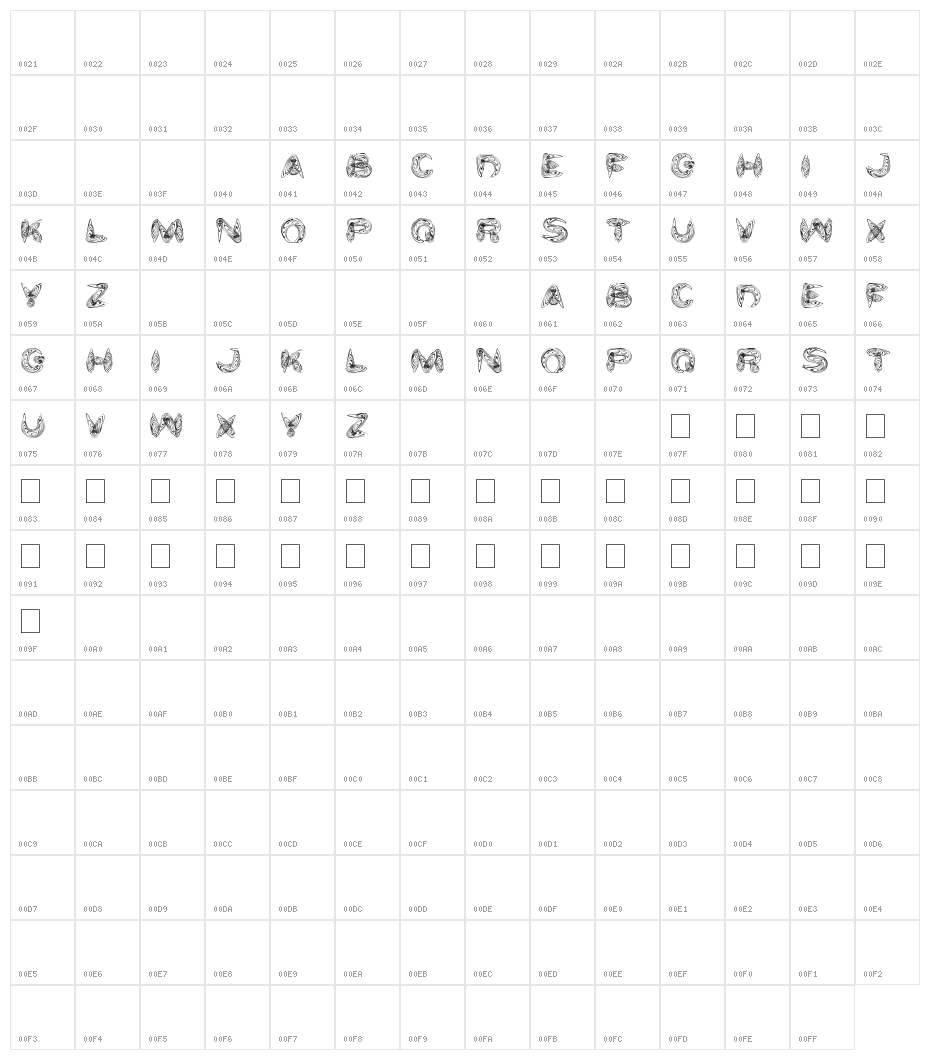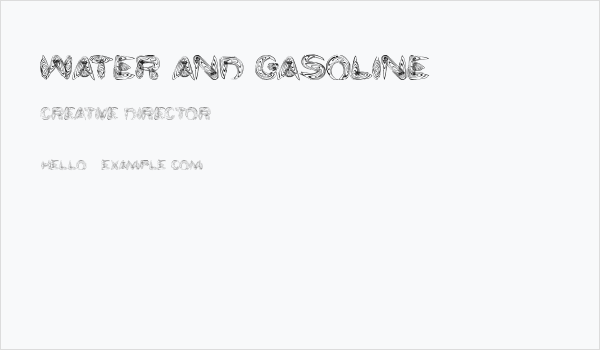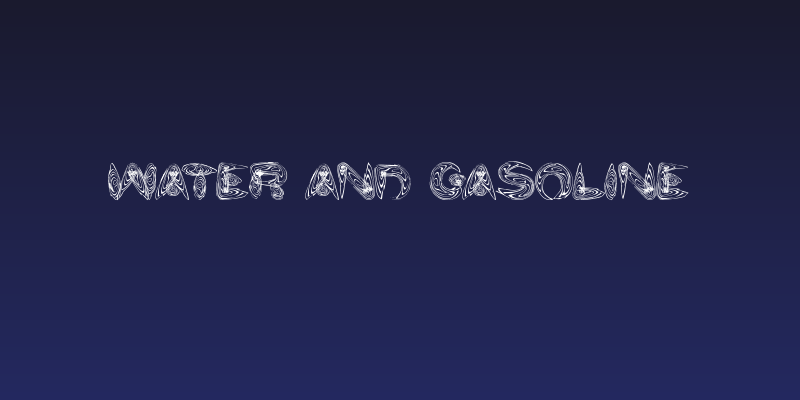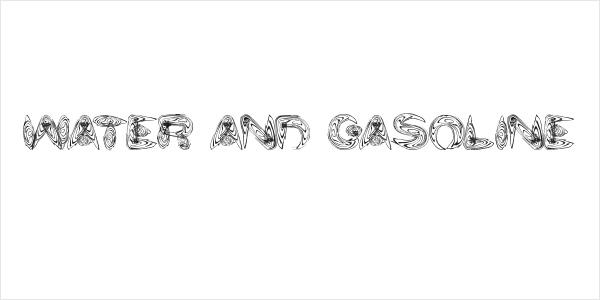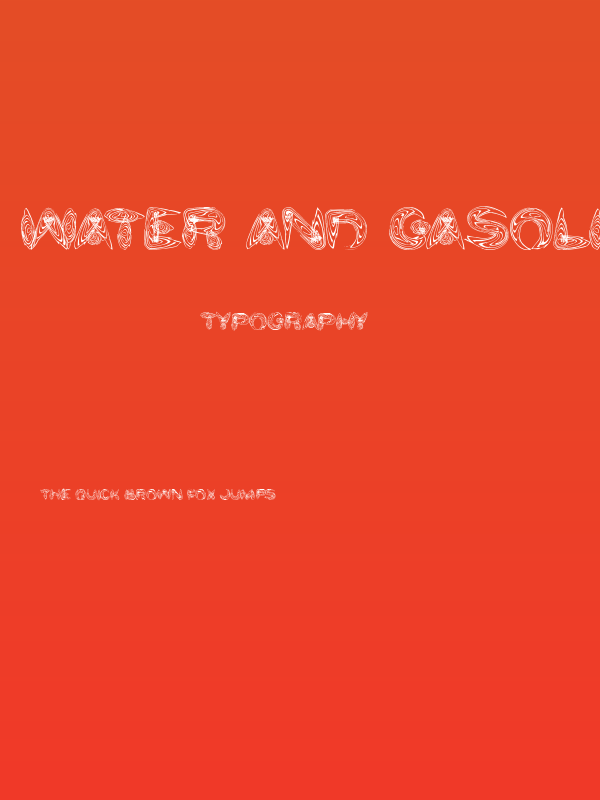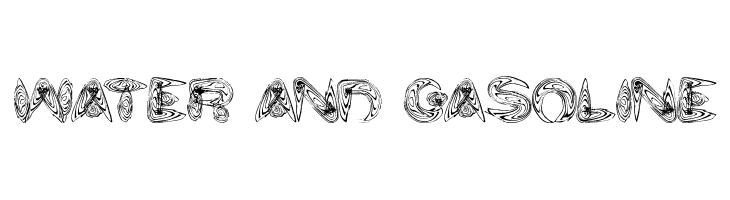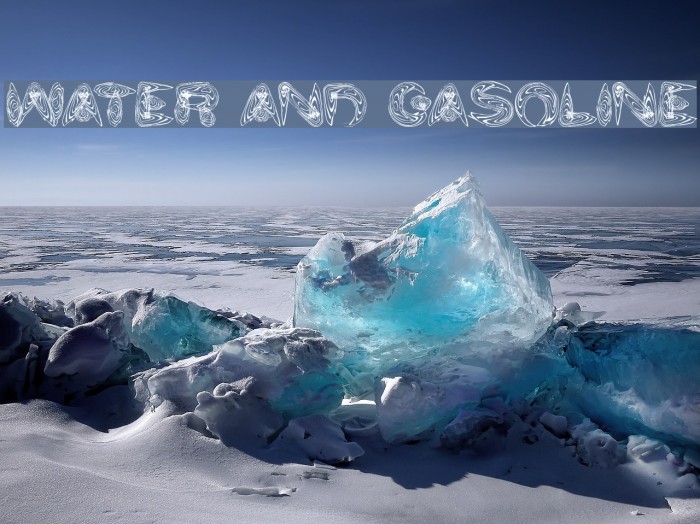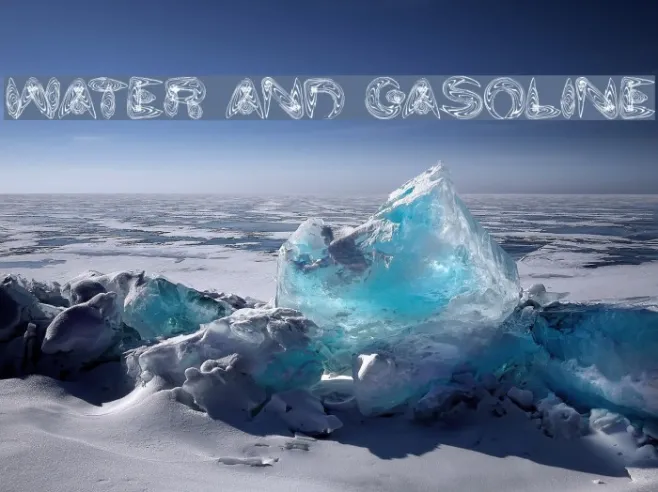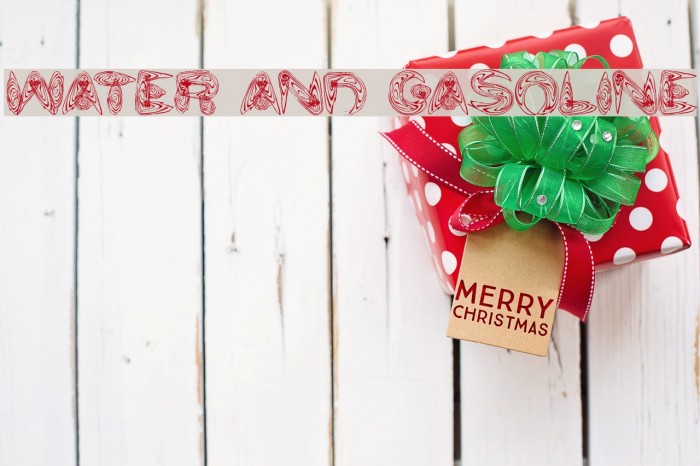
water and gasoline Font
water and gasoline Description
This font features a highly decorative and abstract style, reminiscent of swirling liquid or smoke patterns. Each character is uniquely crafted with intricate loops and curves, giving it a dynamic and fluid appearance. The letters are bold and eye-catching, making them suitable for artistic and creative projects. The overall design is complex, with a high level of detail that suggests movement and energy. This font is ideal for projects that require a strong visual impact and a sense of creativity and innovation.
| Use Case | Logos, Posters, Artistic Branding |
| Proposed Projects | Ideal for album covers, posters, artistic branding, and creative advertising campaigns. |